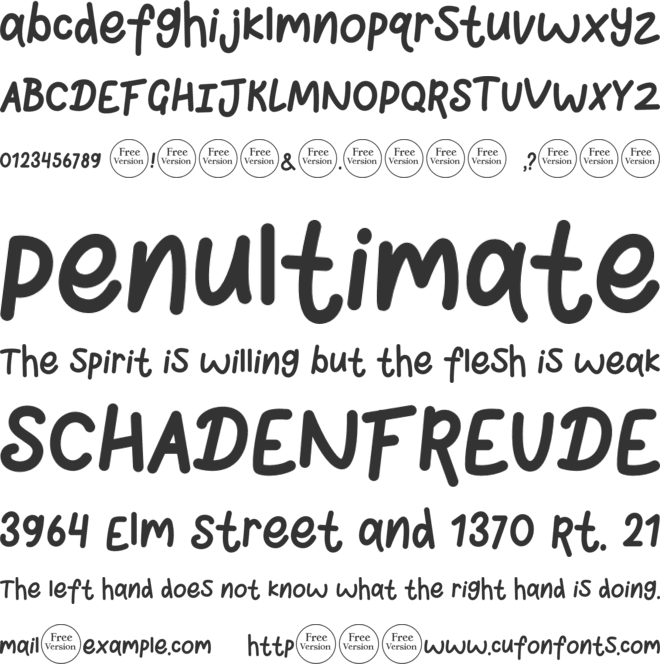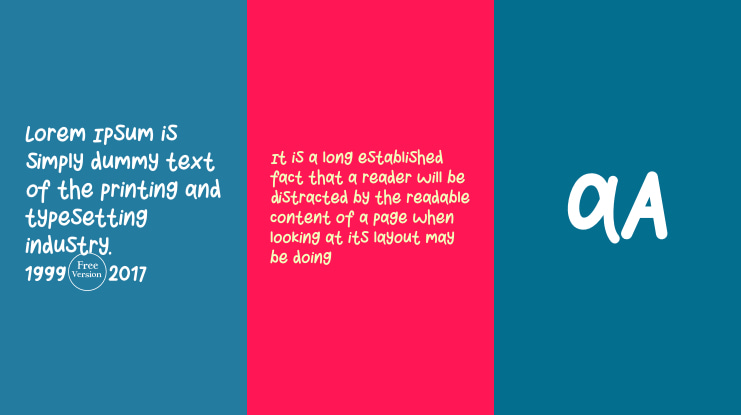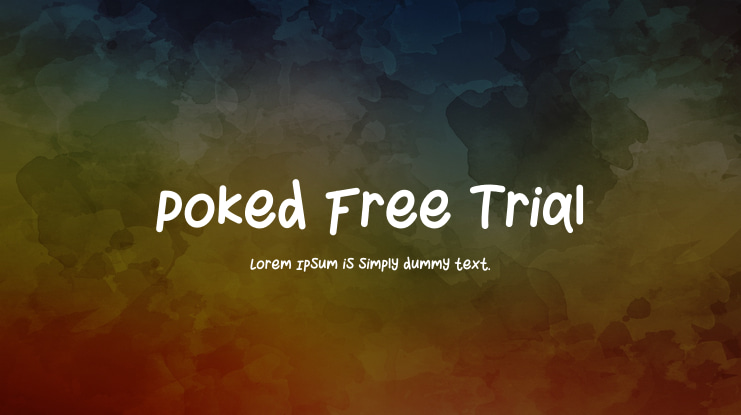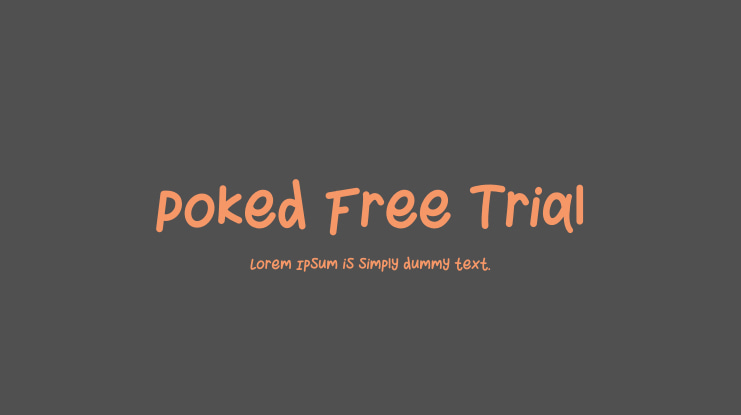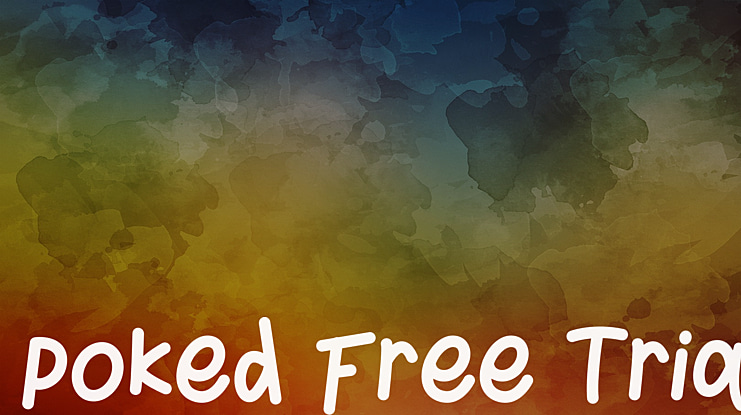
Poked Free Trial Font
Poked is a playful and cute display font. It embodies joy and authenticity and is the perfect choice for any children theme activity or school project.